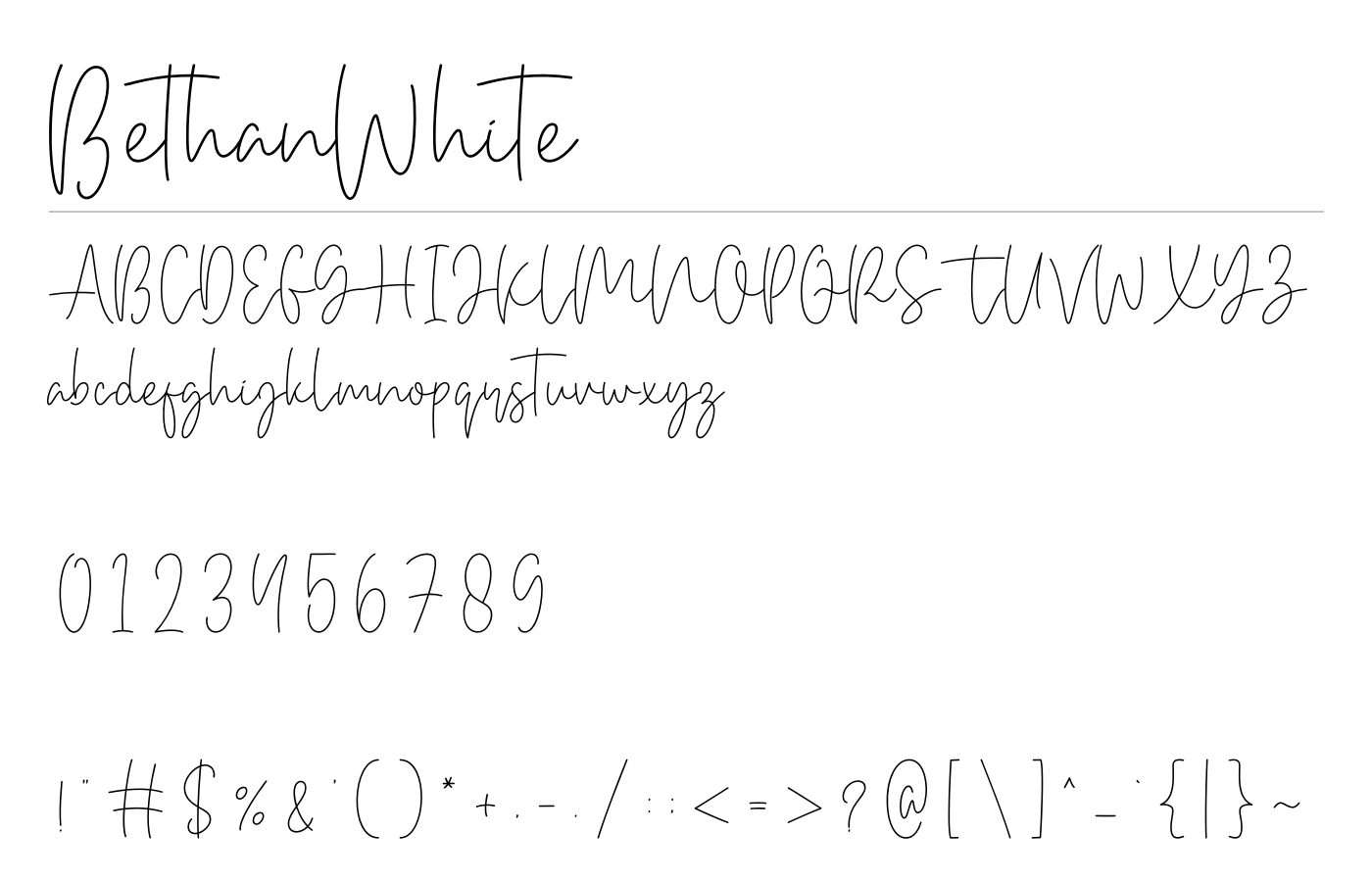
BethanWhite is a delicate, handwritten script font with thin, flowing lines that give it a casual yet elegant feel. Its tall, narrow letterforms and light weight create an airy, modern look perfect for personal branding, wedding invitations, and lifestyle blogs. This font works well in settings where a touch of refined personality and approachable sophistication is desired.
BethanWhite Font
About BethanWhite Font